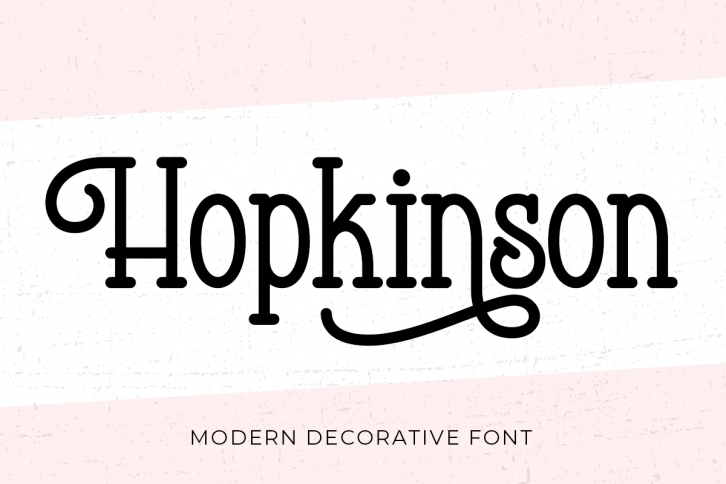
Hopkinson is a contemporary serif font with friendly, open lines and curves. The font is hand drawn to give it a casual and playful feel. Hopkinson is perfect for branding projects, photography and blog posts.